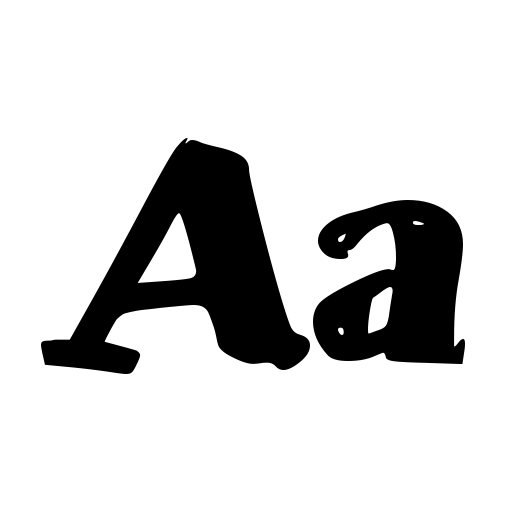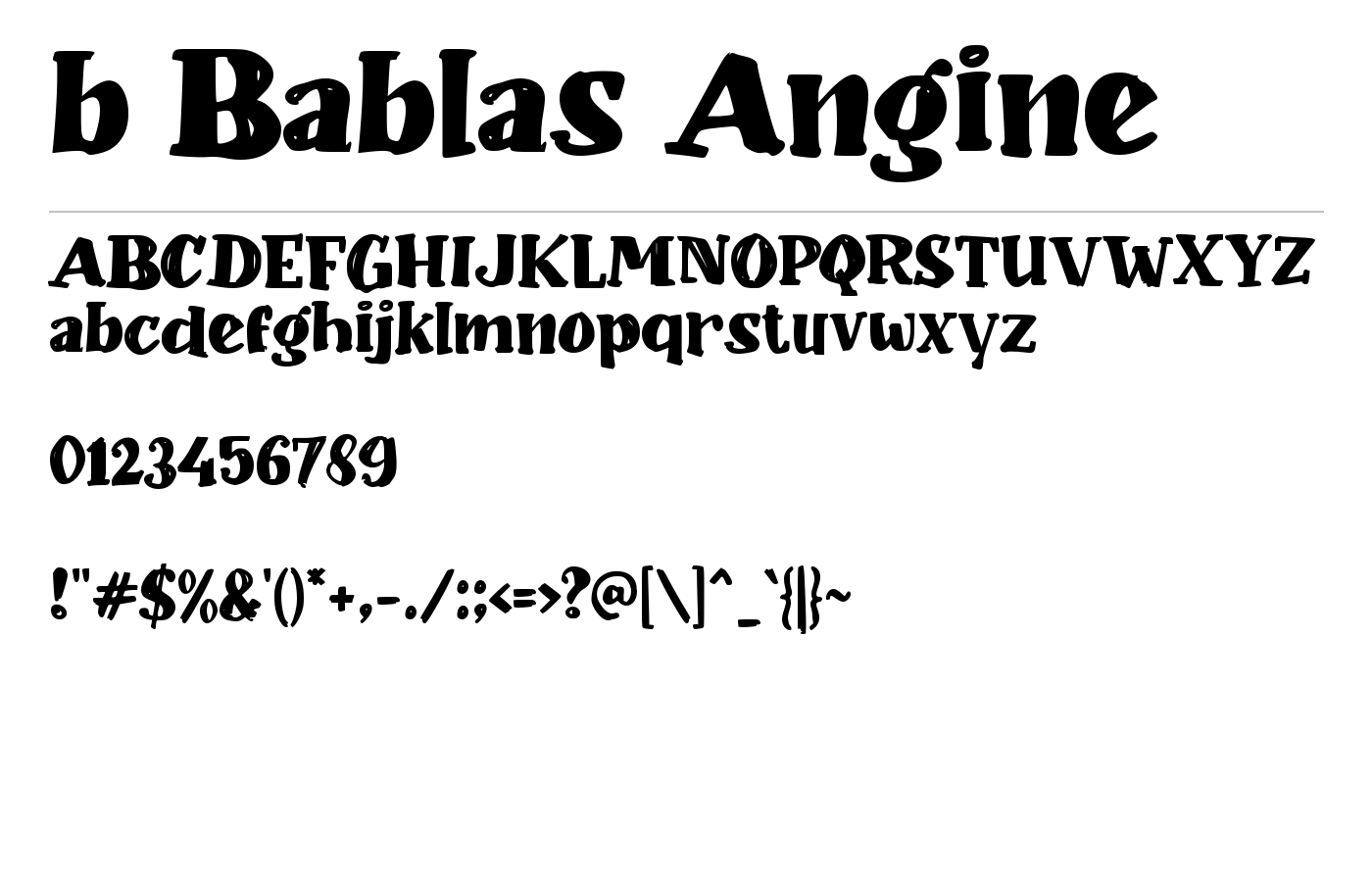
Bablas Angine is a bold serif font with a strong, playful character and irregular strokes that give it a handcrafted, whimsical feel. Its slightly condensed letterforms, moderate contrast, and unique shapes make it ideal for eye-catching headlines, logos, and creative projects seeking a distinctive, informal style. This font works well for brands and designs that want to convey personality and approachability while maintaining a bold and memorable presence.
b Bablas Angine Font
About b Bablas Angine Font